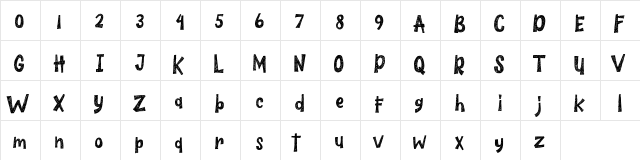
The Wildeast Regular
| Foundry | Trustha Studio |
| Designer | Trustha Studio |
Design Context for The Wildeast Typeface
The Wildeast is a composed and adaptable typeface that performs quietly and consistently across a wide range of design contexts.